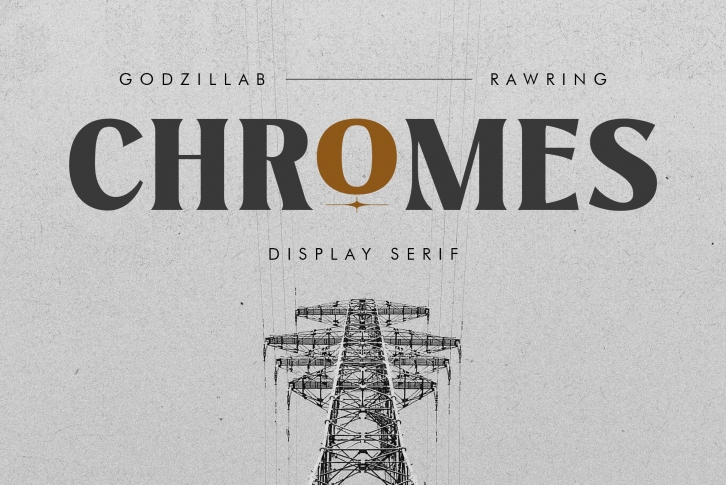
Chromes is a stunning vintage serif font.
Strong-sharp serif font with modern touches, inspired by the modern-classic typography and the High Octane Rock, Post Hardcore, Emo genre. Best for title/headline, logo/logotype, packaging/label designs, etc.